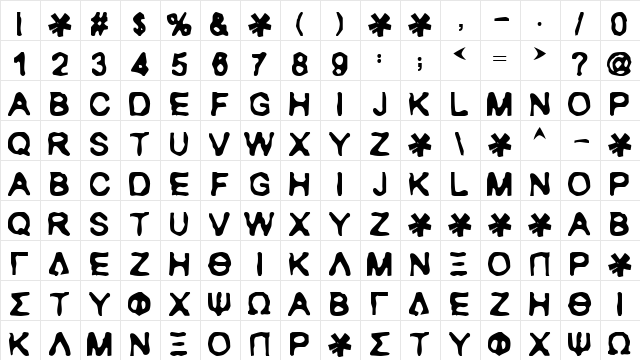
RANXEROX Regular
Design Context for RANXEROX Typeface
RANXEROX takes a measured approach to typography — its balanced proportions and neutral character make it a reliable workhorse for both digital and print work.
Pro Tip: Pair RANXEROX with a font of contrasting weight or personality to build a more expressive typographic hierarchy.